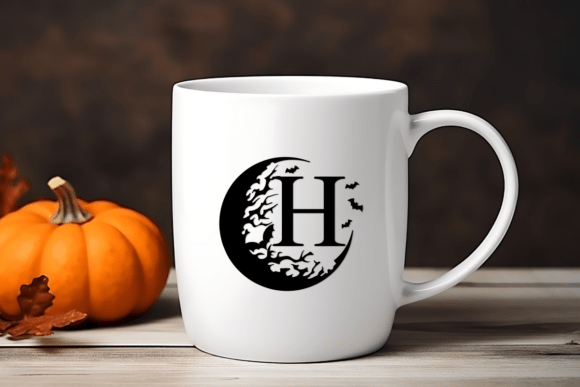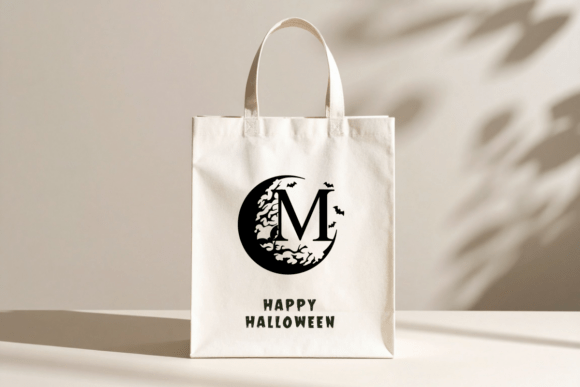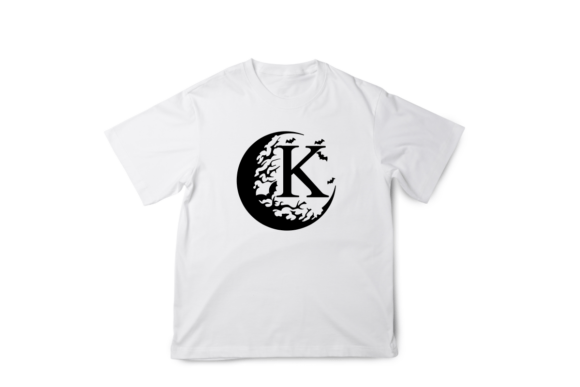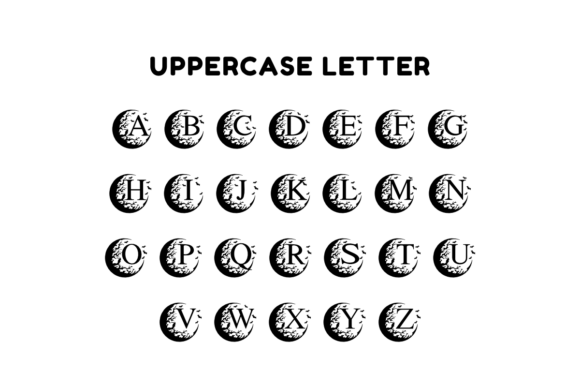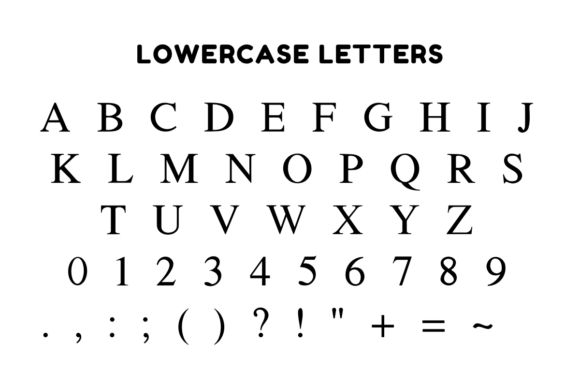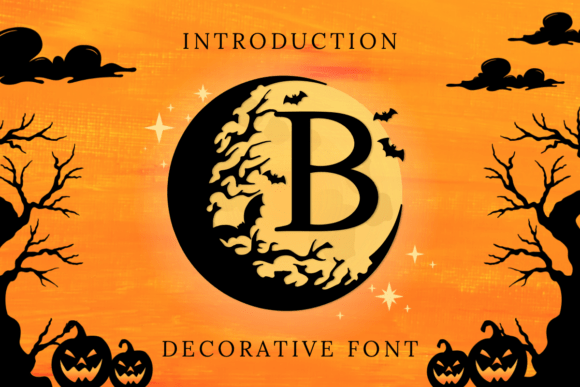
Unleash the Spook: Elevate Your Halloween Designs with the Halloween Bat Font
As the witching hour approaches, designers and crafters are on the lookout for the perfect typography to cast a spell on their audience. Look no further than the Halloween Bat Font, a decorative font that embodies the eerie essence of the spookiest night of the year. This Halloween Decorative Font features spooky, moonlit letters wrapped in eerie branches and shadows—perfect for Halloween designs that need a bold and creepy twist.
A Font that Sets the Mood
The Halloween Bat Font is designed to transport your designs to a world of haunted mansions, creepy crawlies, and ghostly apparitions. Its gothic flair and cinematic silhouette style evoke the nostalgia of classic horror movies, making it an ideal choice for designers who want to create a sense of foreboding and unease. Whether you’re crafting haunted invitations, themed posters, or seasonal merch, this font sets the perfect spooky tone.
Key Features of the Halloween Bat Font
- Spooky and Eerie Design: The font features letters wrapped in eerie branches and shadows, creating a haunting effect that’s sure to send chills down the spine.
- Gothic Flair: The Halloween Bat Font boasts a gothic style that’s reminiscent of old-school horror movies and haunted mansions.
- Cinematic Silhouette Style: The font’s silhouette style adds a touch of drama and cinematic flair, making it perfect for creating eye-catching designs.
- Bold and Creepy Twist: The font’s bold design ensures that your Halloween designs stand out from the crowd, adding a creepy twist that’s sure to leave a lasting impression.
Uses for the Halloween Bat Font
The Halloween Bat Font is incredibly versatile, making it suitable for a wide range of design projects. Here are some ideas to get you started:
- Haunted Invitations: Create spooky invitations for Halloween parties, haunted houses, or ghostly gatherings.
- Themed Posters: Design eye-catching posters for horror movies, haunted attractions, or Halloween events.
- Seasonal Merch: Use the font to create creepy merchandise, such as t-shirts, mugs, or trick-or-treat bags.
- Social Media Graphics: Add a touch of spookiness to your social media graphics, such as Halloween-themed Facebook posts or Instagram stories.
Tips for Using the Halloween Bat Font
To get the most out of the Halloween Bat Font, here are some tips to keep in mind:
- Experiment with Colors: Try pairing the font with bold, bright colors to create a striking contrast.
- Add Texture and Patterns: Add texture and patterns to your design to create a more immersive experience.
- Play with Layout: Experiment with different layouts and compositions to create a unique design.
- Mix and Match Fonts: Try pairing the Halloween Bat Font with other fonts to create a unique and eye-catching combination.
The Halloween Bat Font is a must-have for designers and crafters looking to add a touch of spookiness to their Halloween designs. Its eerie, moonlit letters and gothic flair make it perfect for creating bold and creepy designs that are sure to leave a lasting impression. Whether you’re crafting haunted invitations, themed posters, or seasonal merch, this font sets the perfect spooky tone. So why wait? Unleash the spook and elevate your Halloween designs with the Halloween Bat Font.